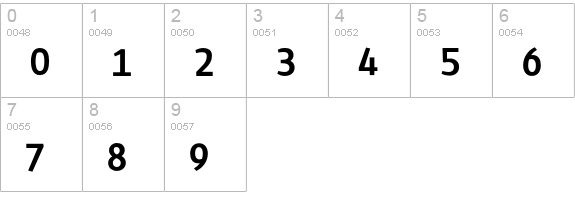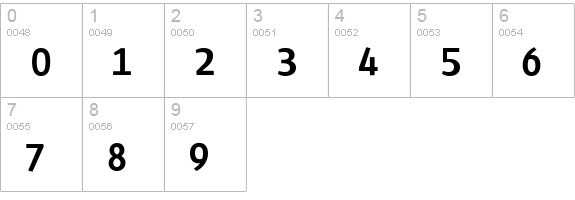
TabardEF-ExtraBold Font Details
TabardEF-ExtraBold is an extra-heavy, attention-grabbing variant in the TabardEF typeface family \xE2\x80\x94 well suited to high-impact headlines, posters, and bold branding.
Introducing TabardEF-ExtraBold, a stunning and versatile font that exudes confidence and power. This font is the epitome of boldness and is designed to make a statement in any design project. With its strong and commanding presence, TabardEF-ExtraBold demands attention and brings a sense of authority to any text. Featuring thick, heavy strokes and clean, sharp lines, TabardEF-ExtraBold is perfect for headlines, titles, logos, and any other design element that requires a strong and impactful typographic choice. Its unique and distinctive letterforms add a touch of modernity to any design, making it a go-to font for designers who want to make an impression. But what makes TabardEF-ExtraBold even more remarkable is that it is available for free! Yes, you read that right. This extraordinary font can be freely downloaded at FontsMarket.com, allowing designers and creatives to access its power and versatility without any cost. Now, you can elevate your designs without breaking the bank. Whether you're working on a branding project, a magazine layout, or a website design, TabardEF-ExtraBold will elevate your work to new heights. Its strong presence and bold personality will captivate your audience and leave a lasting impression. So go ahead and download TabardEF-ExtraBold from FontsMarket.com today and unleash the power of this exceptional font in your next design endeavor.